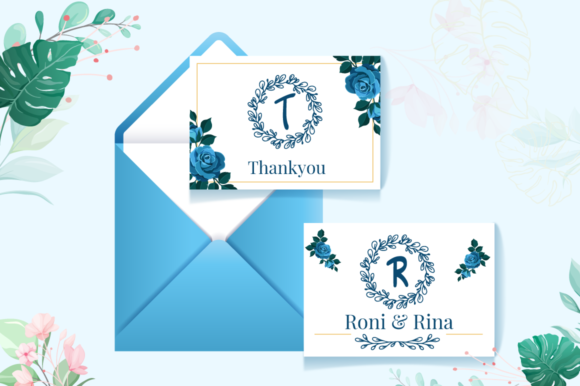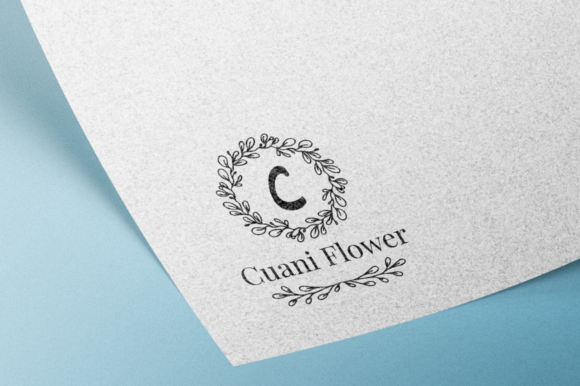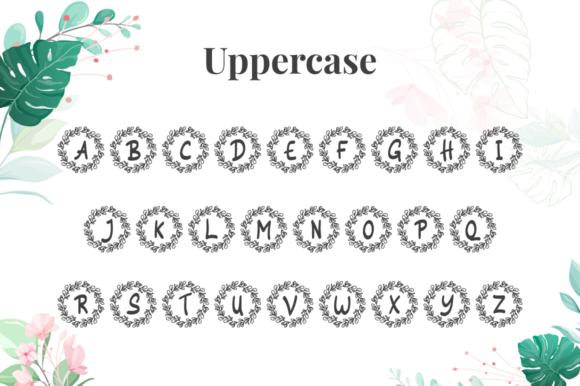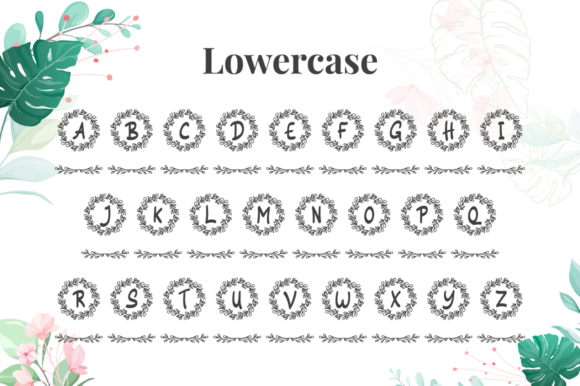
Introduction to Siestha Monogram Font
Have you ever found yourself stuck on a creative project, searching for that perfect touch to elevate your design? It’s a feeling we’ve all been there – pouring over fonts, colors, and textures, hoping to find that one thing that will make our project truly shine. For designers, it’s not just about creating something aesthetically pleasing, but also about conveying emotion and personality through our work.
That’s where the Siestha Monogram Font comes in – a dainty and unique decorative font that adds a touch of whimsy and romance to any design. Whether you’re crafting love letters, wedding invitations, or simply looking for a special font to add to your design resource library, this font is sure to delight.
Key Features of Siestha Monogram Font
- Unique and elegant monogram design, perfect for creative projects and personal branding.
- Suitable for a wide range of design projects, from wedding invitations to business cards and social media graphics.
- Designed with a modern and sophisticated aesthetic, perfect for adding a touch of elegance to any creative project.
Honest Review: Siestha Monogram Font
I recently had the opportunity to work with the Siestha Monogram Font, and I must say it’s been a game-changer for my creative projects. ✨ The level of detail and customization options available is impressive, making it a valuable addition to any designer’s toolkit.
Overall, I’m thoroughly impressed with the Siestha Monogram Font. It’s a fantastic design resource that has elevated my creative projects to the next level. If you’re looking for a reliable and versatile font, I highly recommend giving it a try.
Tips for Getting the Most Out of Siestha Monogram Font
Use the Siestha Monogram Font in combination with other design elements, such as graphics and images, to create a unique and eye-catching design. Experiment with different font sizes and colors to achieve the desired effect.
The Siestha Monogram Font is ideal for a variety of creative projects, including logo design, social media graphics, and business cards. It’s also great for creating custom invitations, party decorations, and other design elements that require a high-quality, monogram font.